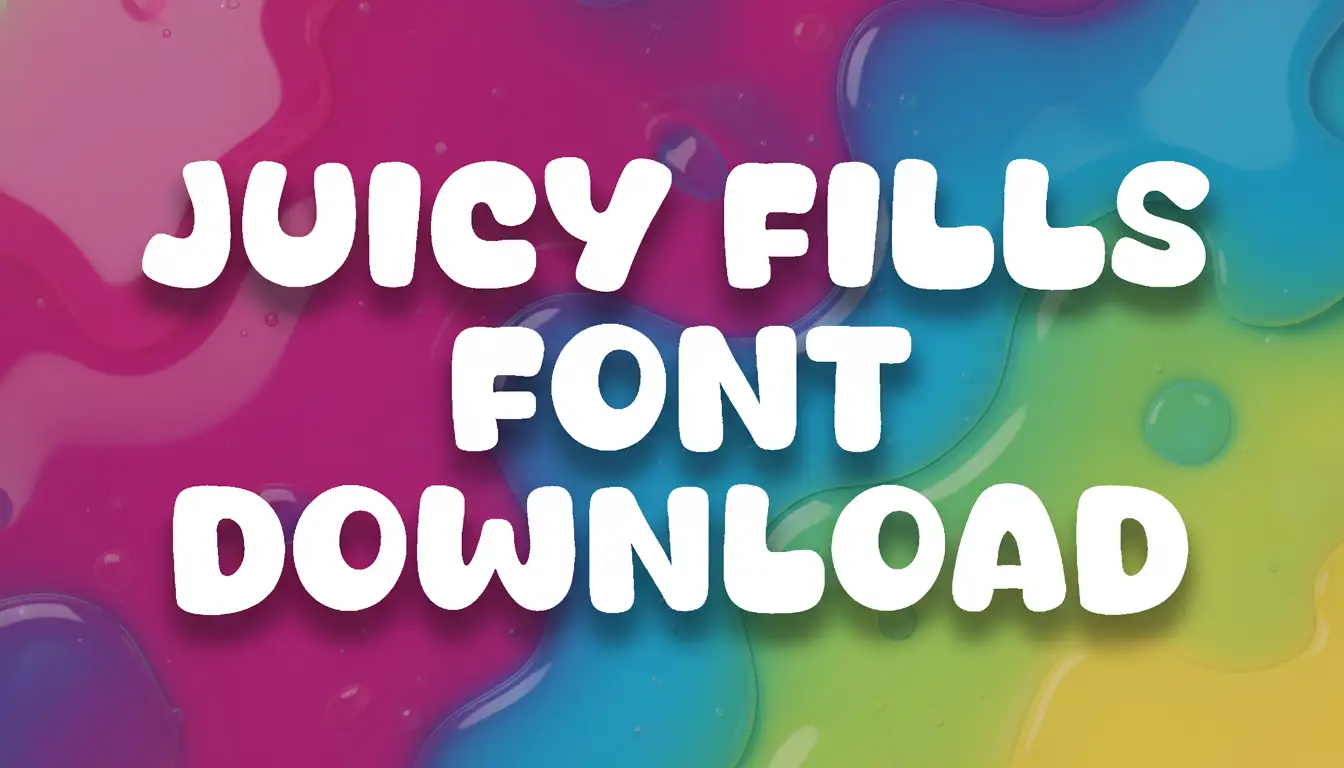
Juicy Fills Font
Juicy Fills
Juicy Fills is a fancy font designed by Khurasan. It's a decorative display font with plenty of personality, made to grab attention. It's a free download, and you can try it with your own text in the preview above first.
What You Can Type With Juicy Fills
With complete upper and lowercase letters and all ten digits, Juicy Fills is ready for real wording, not just a single headline. Common punctuation such as &, !, ? and @ is included as well. It doesn't include accented letters such as é or ñ, which makes it an English-only font.
Where Juicy Fills Works Best
Designers usually reach for fonts like Juicy Fills when they're making posters, logos and eye-catching headlines. Use it for one standout word or headline and let simpler fonts handle the rest.
Does Juicy Fills support accented letters?
No. Juicy Fills has no accented letters such as é, ñ or ü, so it's best for English text.